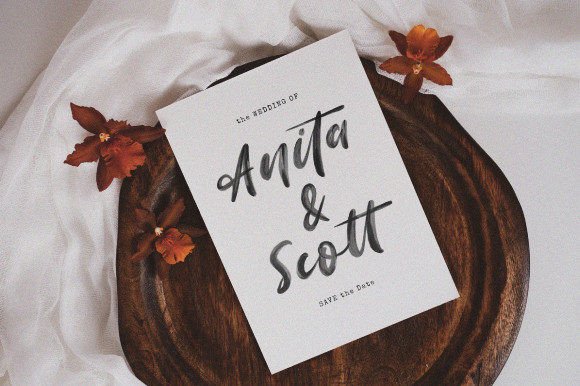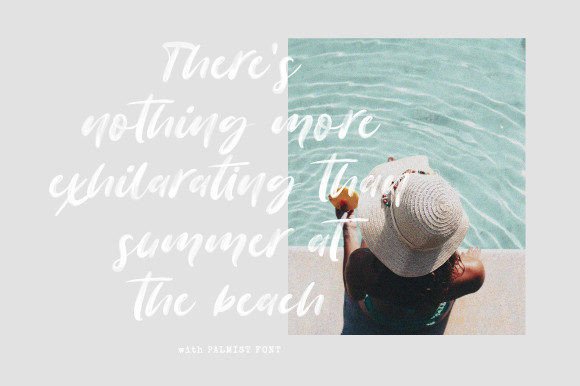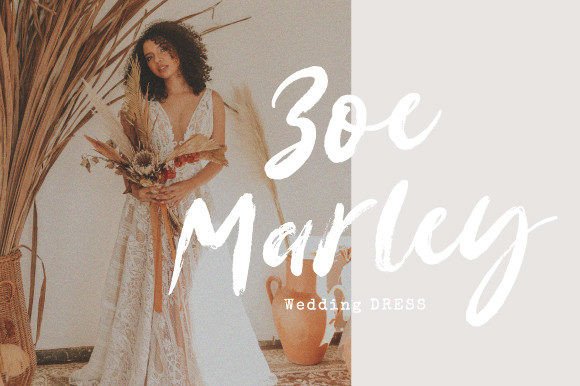
Introduction to Palmist Font
Palmist – SVG Script Font.
A beautiful script font with an awesome paint texture Looks natural and very pleasing to the eye.
Palmist Font offers exceptional quality and versatility, making it a valuable addition to your design toolkit. Whether you’re creating for personal projects or commercial use, Palmist Font delivers professional results.